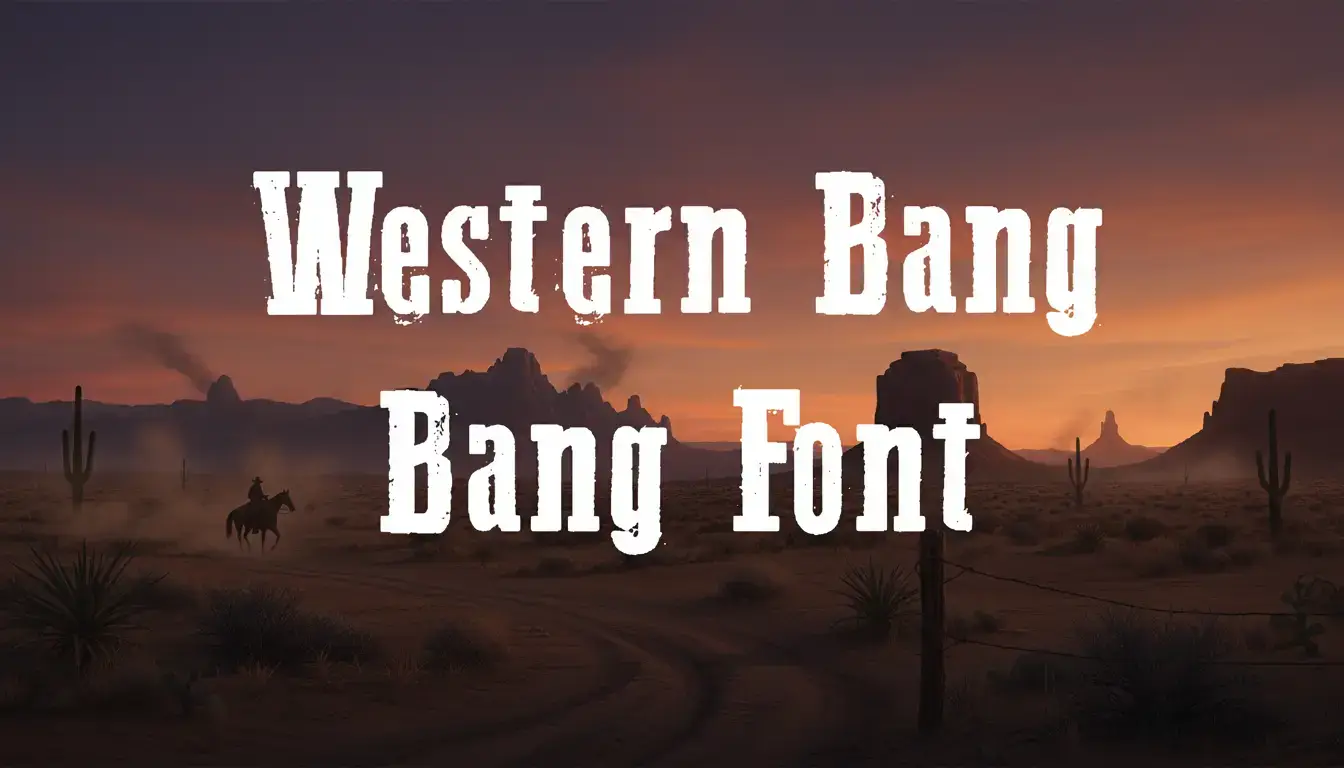
Western Bang Bang Font
Western Bang Bang is a Western font designed by Galdino Otten. It has the bold, wood-type look of Wild West wanted posters and saloon signs. It's a free download, and you can try it with your own text in the preview above first.
What You Can Type With Western Bang Bang
Western Bang Bang covers the full alphabet in upper and lowercase, plus all ten numbers, so you can set names, dates and prices without switching fonts. Common punctuation such as &, !, ? and @ is included as well. It also has the accented letters you need for Spanish, French, German, Portuguese and Italian. On top of that, it includes Cyrillic characters.
Where Western Bang Bang Works Best
Think of Western Bang Bang for rodeo posters, saloon signs and country music flyers. Try it in brown, rust or cream on a paper texture for the full old-west look.
Does Western Bang Bang support accented letters?
Yes. Western Bang Bang includes the accented letters needed for Spanish, French, German, Portuguese and Italian, so it works for more than just English.
What fonts pair well with Western Bang Bang?
A sturdy slab serif or a simple serif works well for the smaller text.